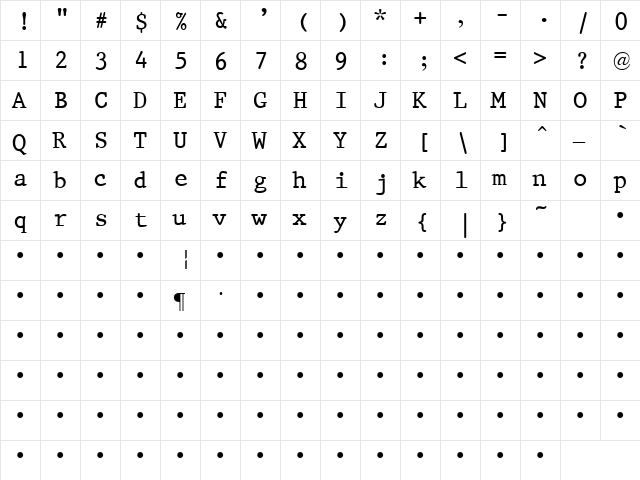
Fuzzy 2 Regular
Design Context for Fuzzy 2 Typeface
Fuzzy 2 takes a measured approach to typography — its balanced proportions and neutral character make it a reliable workhorse for both digital and print work.